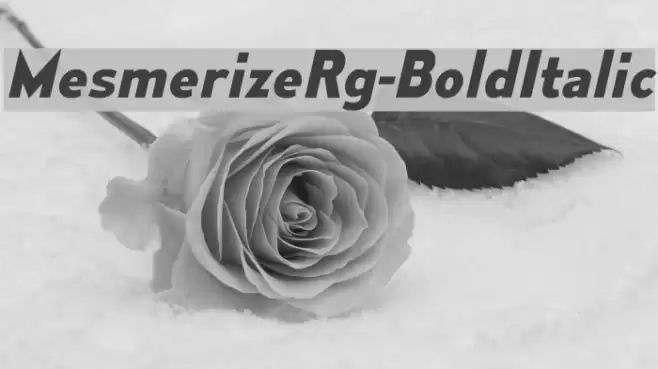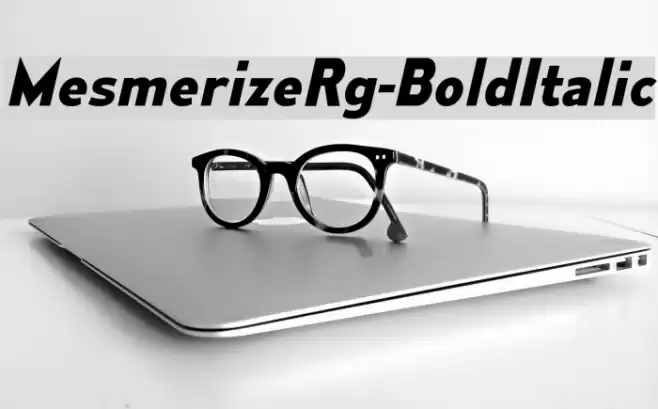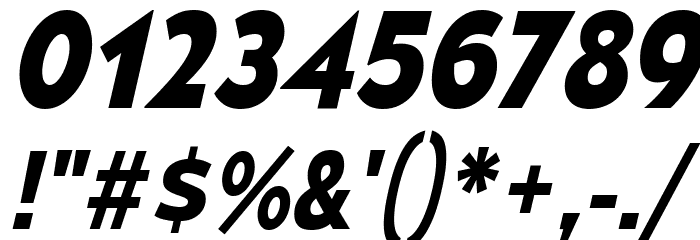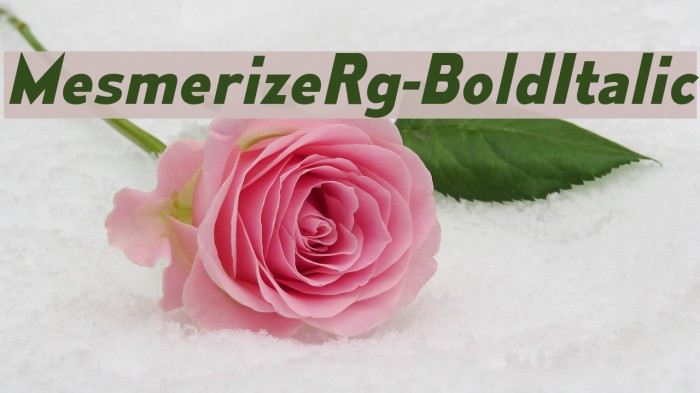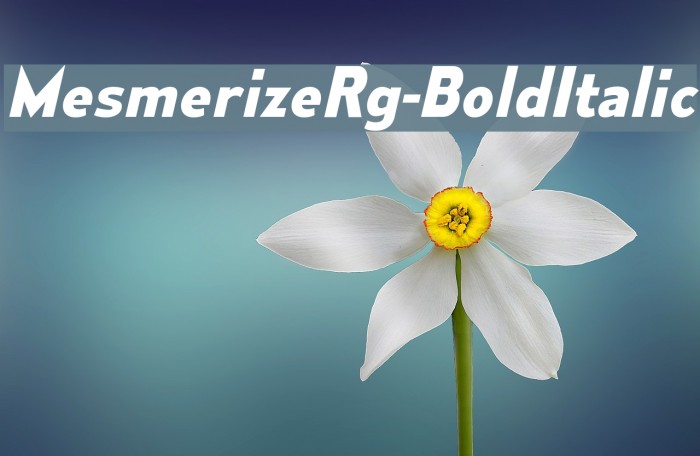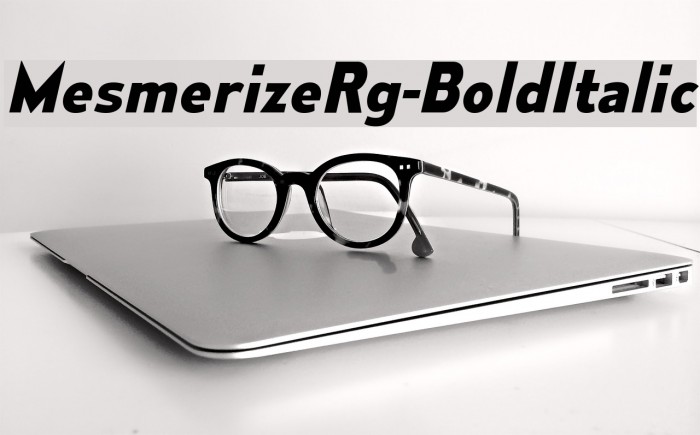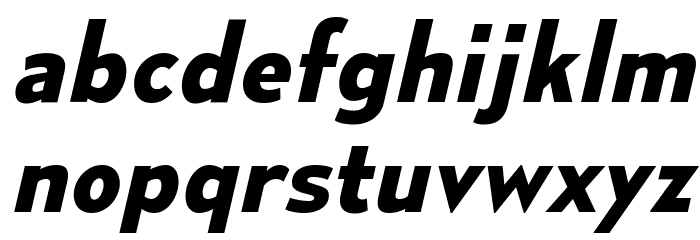
MesmerizeRg-BoldItalic Font
MesmerizeRg-BoldItalic Description
This font exhibits a bold and italicized style, characterized by strong, thick strokes and a forward-leaning posture. The uppercase letters are robust and commanding, while the lowercase letters maintain a consistent weight, ensuring readability. The numerals are equally bold, matching the overall aesthetic of the alphabet. Special characters are designed with the same attention to detail, ensuring they integrate seamlessly with the text. The font's slanted design adds a dynamic and energetic feel, making it suitable for attention-grabbing headlines and impactful statements.
A bold, italicized font with strong strokes and a dynamic, forward-leaning style from Uncategorized fonts.
- Proposed Projects: Ideal for branding, advertising, headlines, and any project requiring a bold, impactful typeface.
- Use Case: Headlines, Logos, Advertising